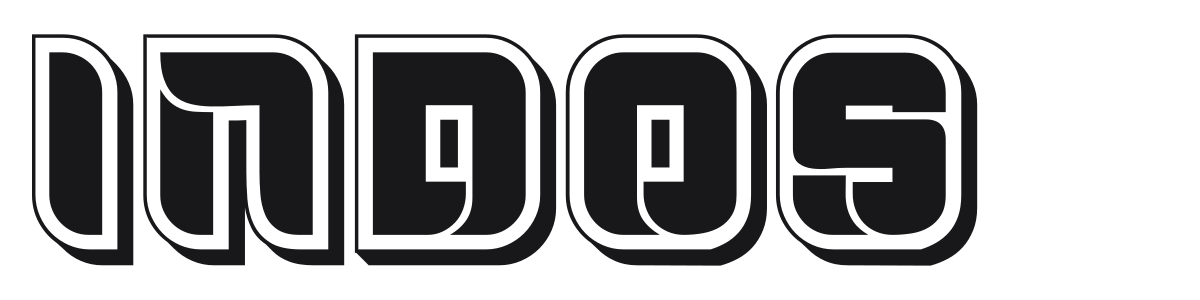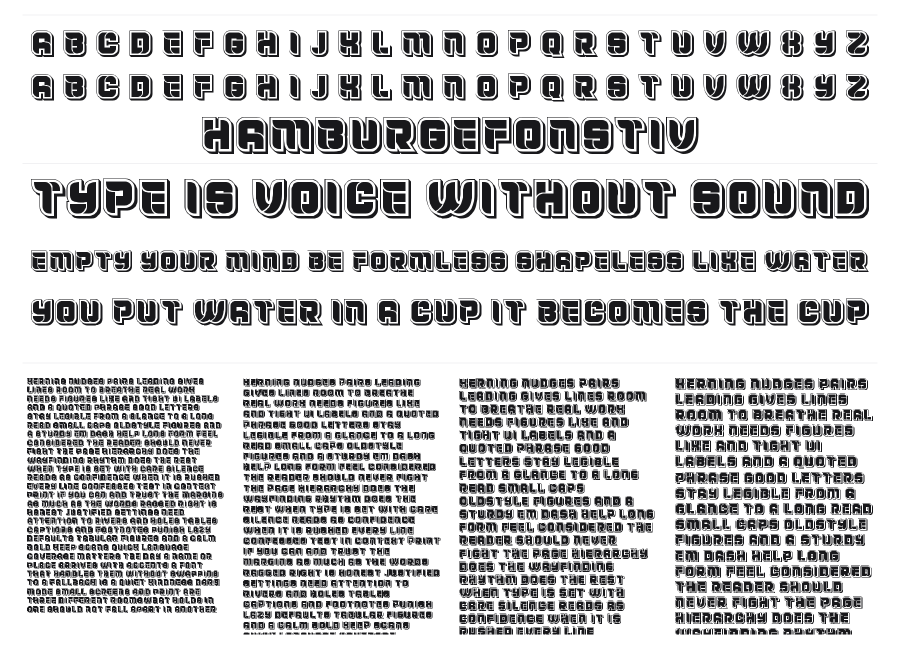
Indos
Indos is a heavy retro display face built on bold, rounded forms with an inline shadow treatment that gives every character a thick, layered depth. The ultra-wide proportions and uniform stroke weight pull straight from 1970s groovy typography. It works best large, where the inline detailing and chunky silhouette can do their thing.